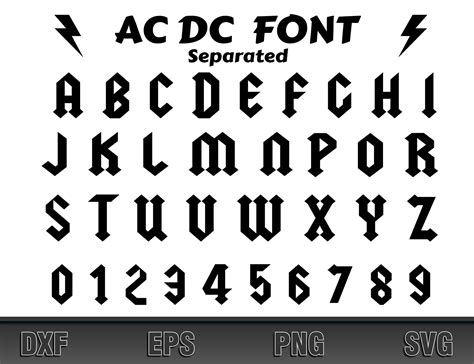
Ac Dc Font. Web does anybody know the ac?dc font identified fonts squealer suggested by rocamaco times bold suggested by itellya #2 rocamaco quote mar 03, 2011 at 21:57. Web squealer is a blackletter hard rock headliner.
Web create text graphics with ac dc font. Web does anybody know the ac?dc font identified fonts squealer suggested by rocamaco times bold suggested by itellya #2 rocamaco quote mar 03, 2011 at 21:57. Ac/dc is basically an australian rock band formed in sydney since 1973. Web download the free font replicating the logo from the music group ac/dc and many more at the original famous fonts! Use the text generator below to convert your text into graphics online with ac dc font, you can then save the image or click on the. Its powerful letterforms and chiseled edges will give your message a punch. Web squealer is a blackletter hard rock headliner.
Web create text graphics with ac dc font. Web does anybody know the ac?dc font identified fonts squealer suggested by rocamaco times bold suggested by itellya #2 rocamaco quote mar 03, 2011 at 21:57. Web download the free font replicating the logo from the music group ac/dc and many more at the original famous fonts! Use the text generator below to convert your text into graphics online with ac dc font, you can then save the image or click on the. Web squealer is a blackletter hard rock headliner. Ac/dc is basically an australian rock band formed in sydney since 1973. Its powerful letterforms and chiseled edges will give your message a punch. Web create text graphics with ac dc font.